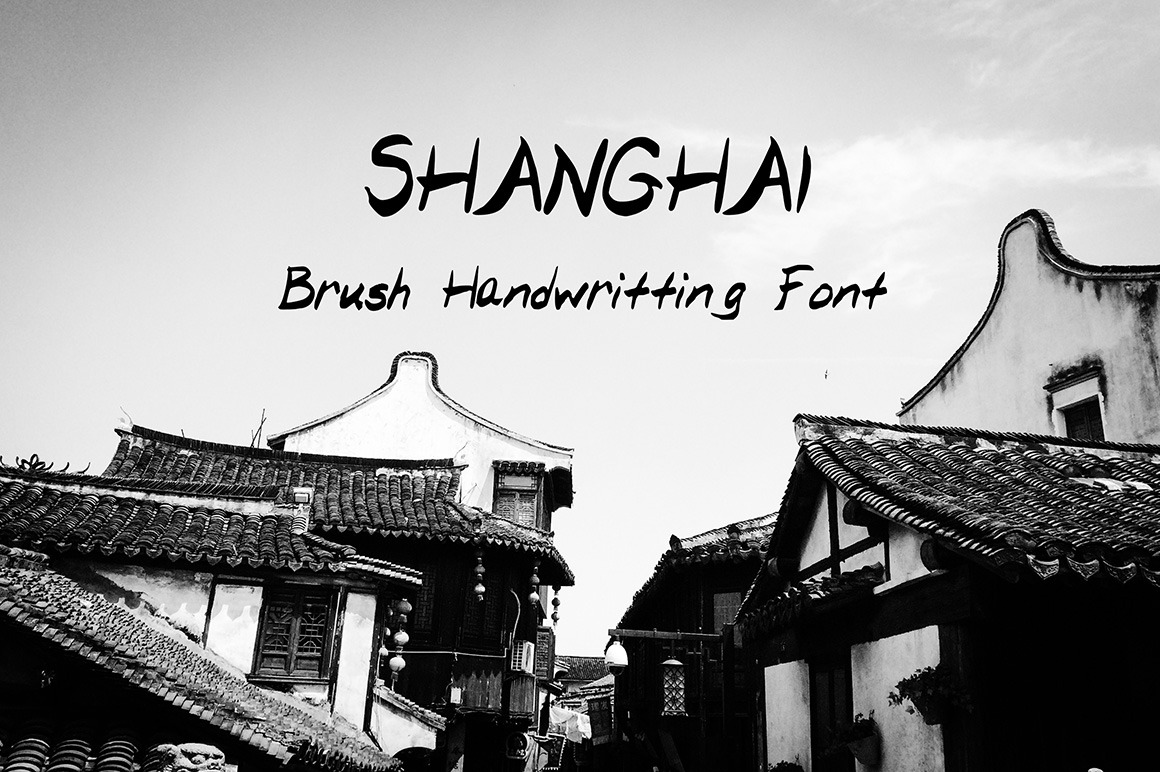
Shanghai - Brush Handwritten Font
Quirky handwritten brush font. Inspired by the brush calligraphy of historical Shanghai.
This playful font is simple and perfect for quotes, social media, logos, invitations, and other print materials.